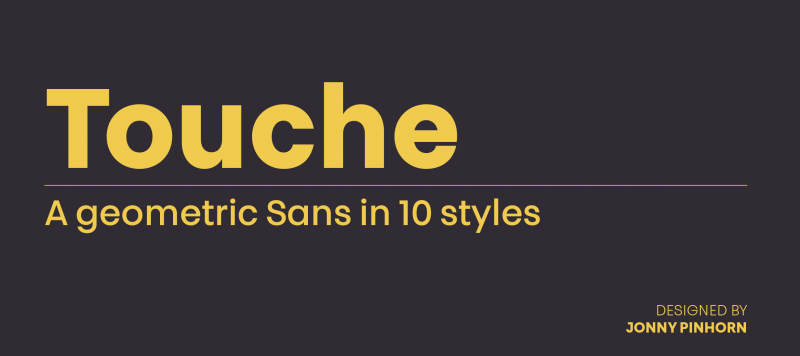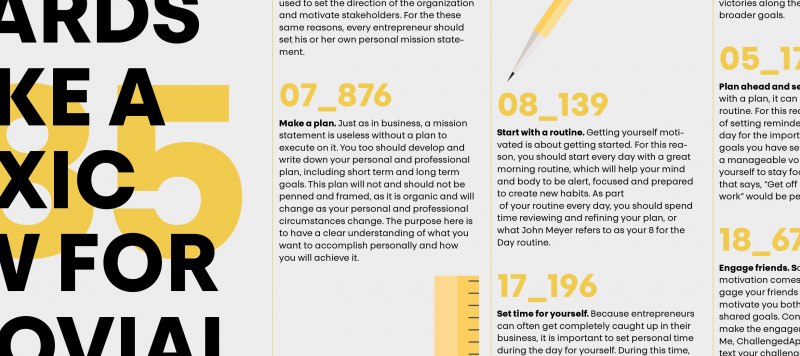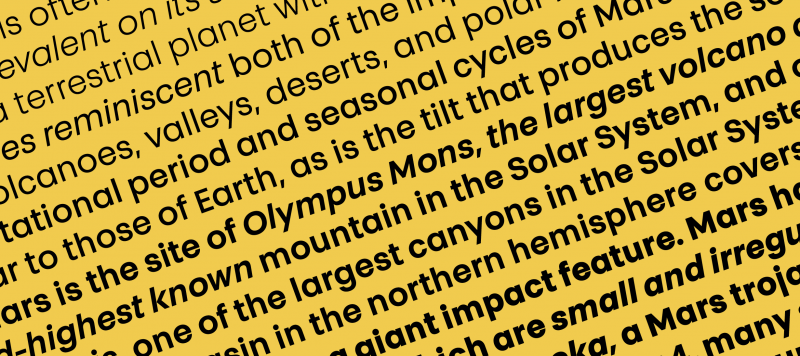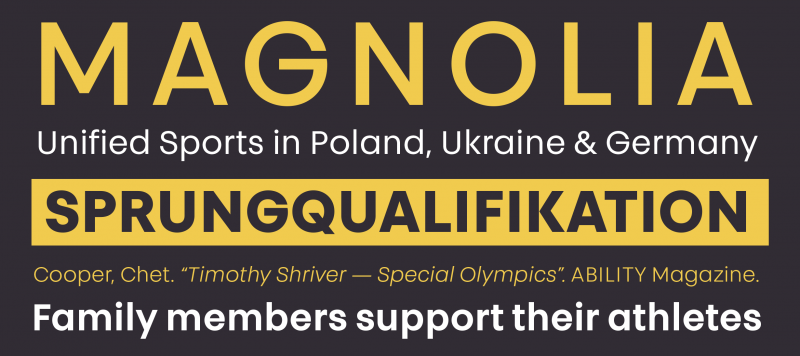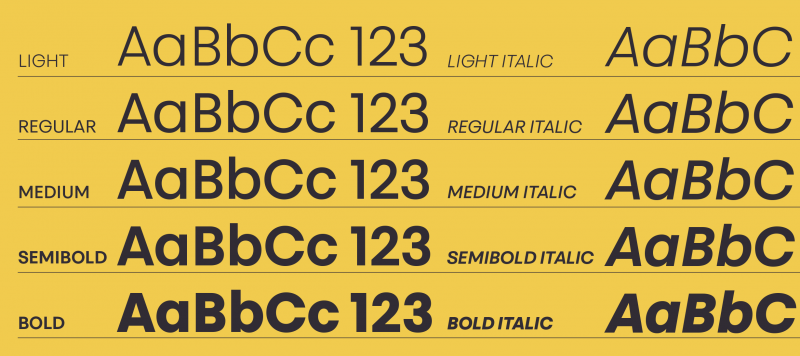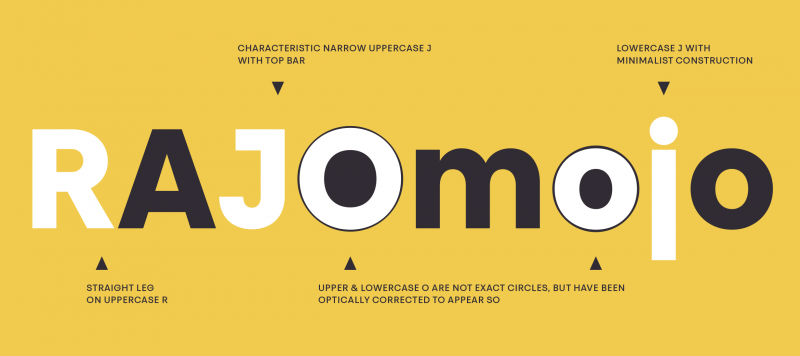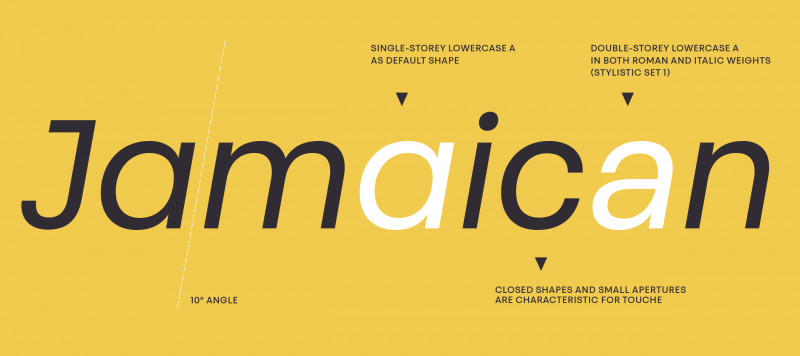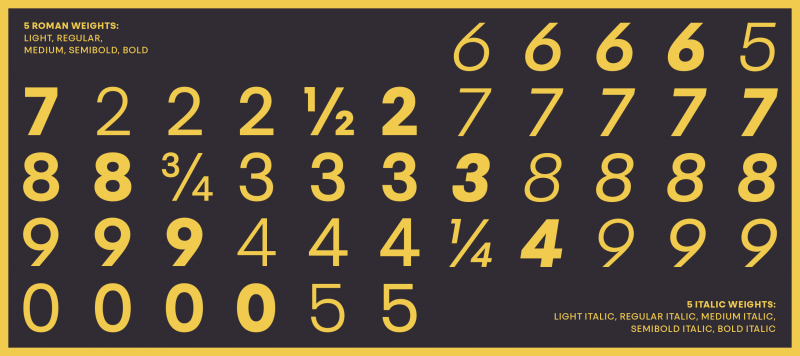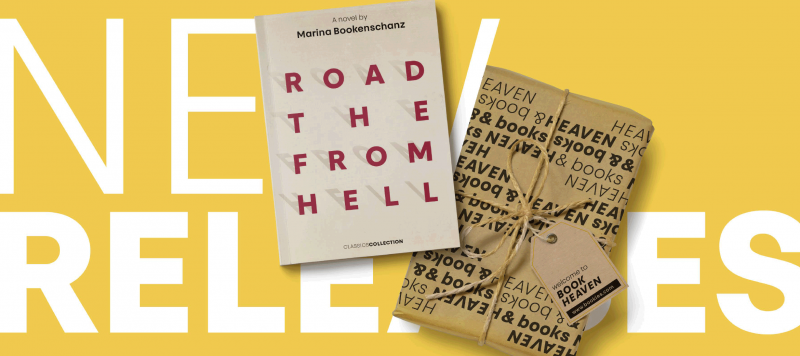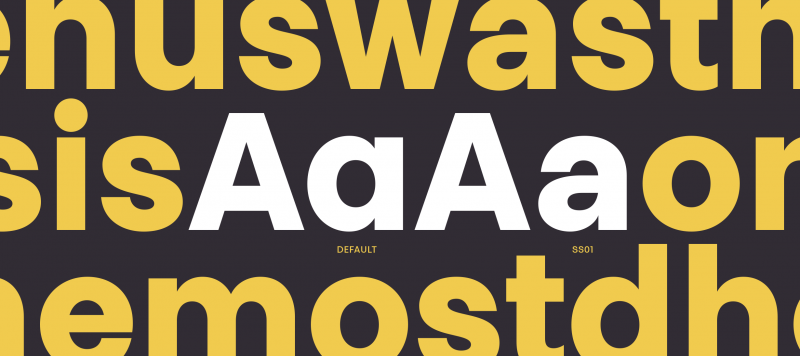
Touche is a geometric sans with a special touch. It is not made up of the standard geometric forms found in many other typefaces of that genre; the internal strokes on the G and the Q, for instance, are very elongated. A top stroke has been added to the J, without forcing the glyph to become any wider. The S hugs the space inside of it. The lowercase j has been reduced to its barest, most minimal nature, but the lowercase t has an outstroke. All of the family’s letterforms remain optically monolinear, even in the Bold weight.
Family Name | Touche |
Designer(s) | Jonny Pinhorn |
Classification | Sans |